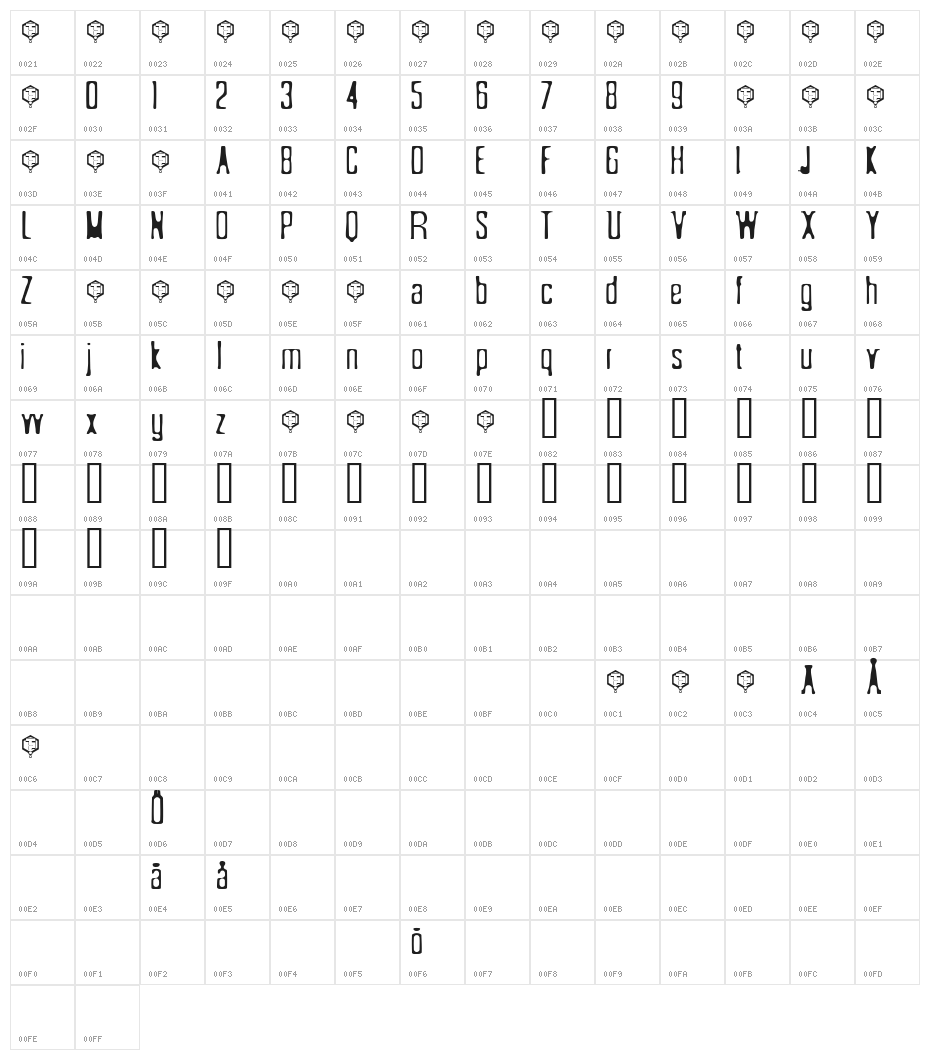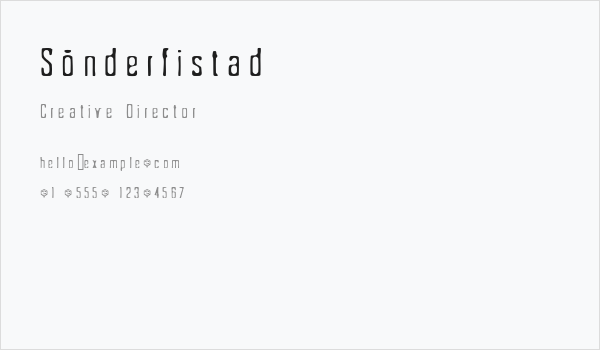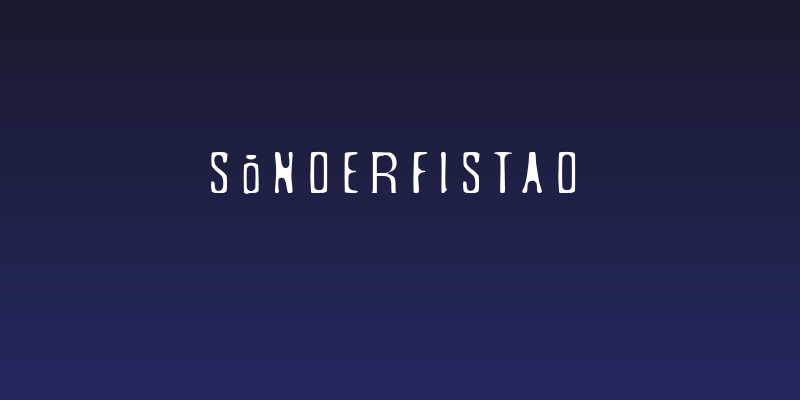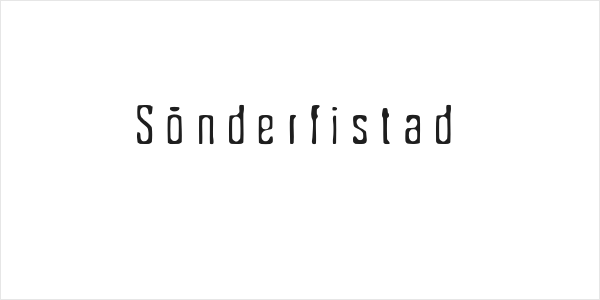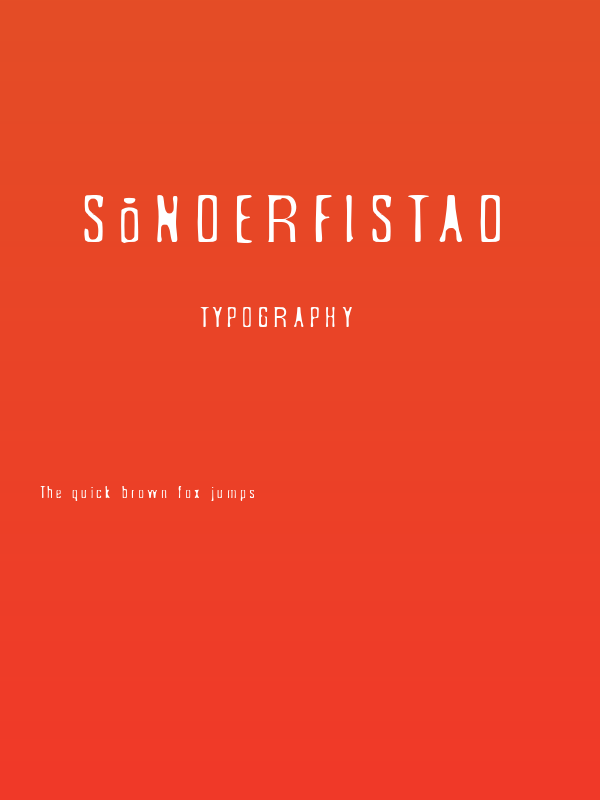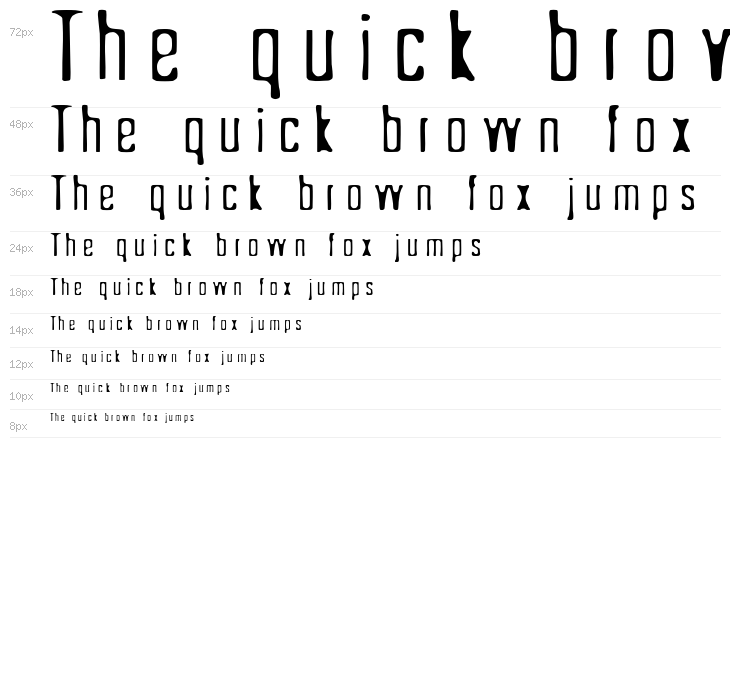
Sönderfistad Font
Sönderfistad Description
This font features a unique and artistic style with irregular, organic shapes that give it a handcrafted appearance. The uppercase letters have a bold presence with varying stroke widths, creating an eye-catching contrast. The lowercase letters maintain the same artistic flair, with some characters having elongated or exaggerated features. The numbers are consistent with the overall style, offering a playful yet structured look. Special characters are creatively designed, adding to the font's distinctive personality. This font is ideal for projects that require a touch of creativity and individuality.
| Overall Style | Artistic, Creative |
| Use Case | Logos, Posters, Artistic Displays |
| Proposed Projects | Ideal for creative projects such as posters, album covers, branding, and artistic displays. |